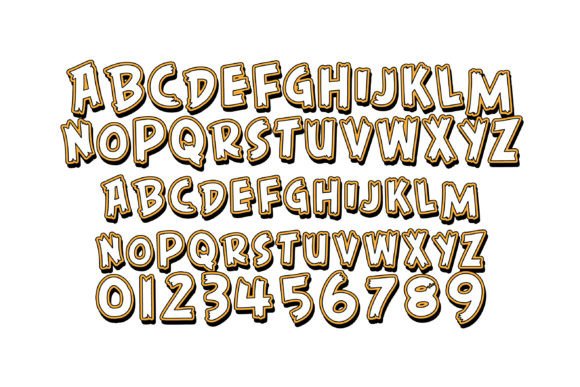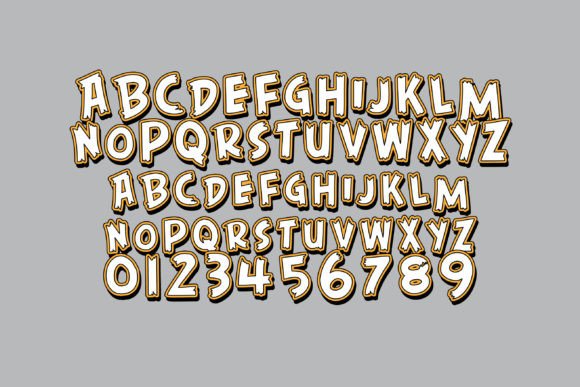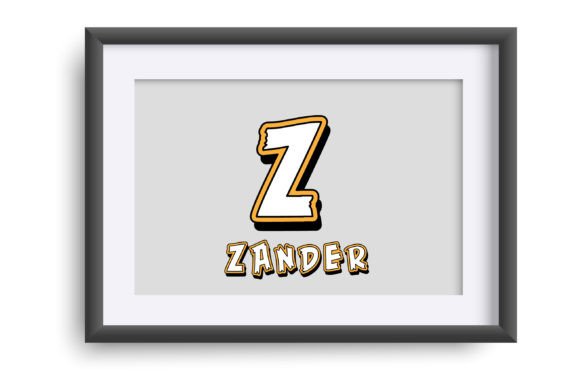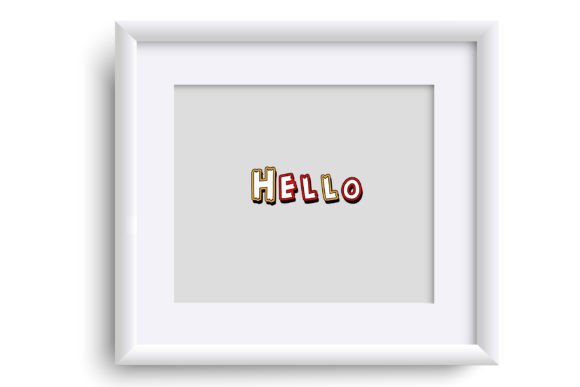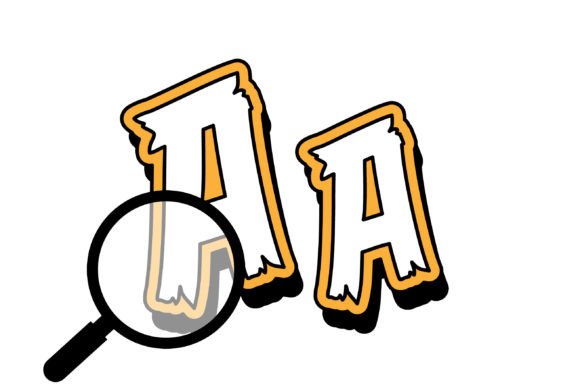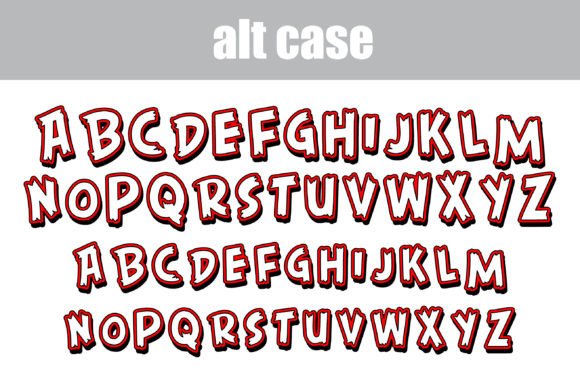
Introduction to Angry Slingshots Font
This full-color font features a wooden-like 3d lettering in an angry color palette.
There is an alt case w/ additional colors you can access through your system or Silhouetteโs glyph map This font works best for titles, displays, posters and more.